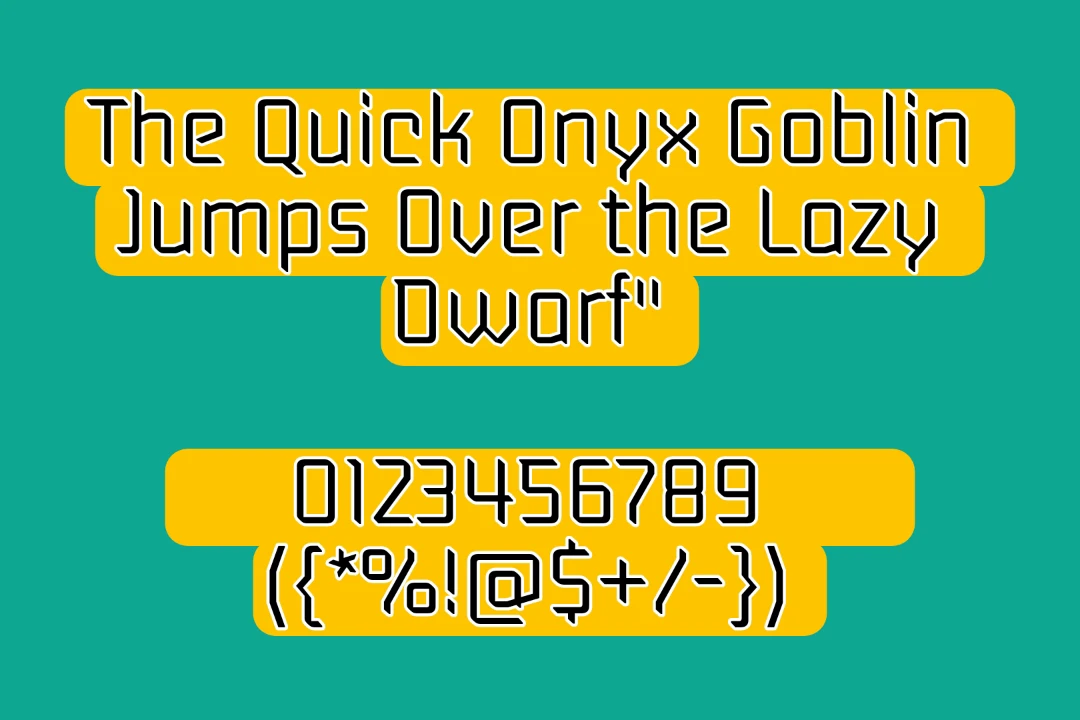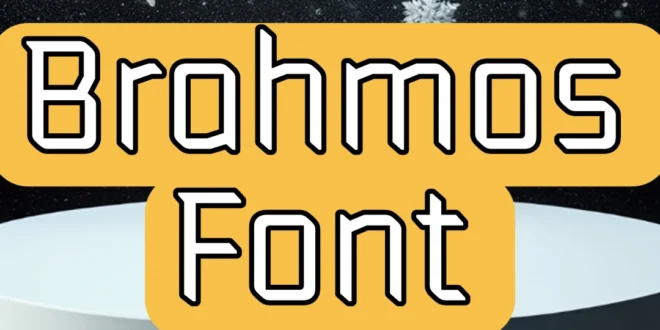
Brahmos Font is a striking display typeface family released by ITF in 2015. This unique font was designed by Hitesh Malaviya for Devanagari and Satya Rajpurohit for Latin.
It is available in five upright styles, offering a versatile range of options for various design needs. Its unique and bold appearance makes it an excellent choice for creating visually impactful designs. You can utilize its online generator tool and create your styles.
Usage of Brahmos Font
Use it for headlines, titles, and other display text to make a strong visual statement. Its bold and unique style ensures your text grabs attention.
Create memorable logos with Brahmos. Its distinct design helps your brand stand out and leaves a lasting impression.